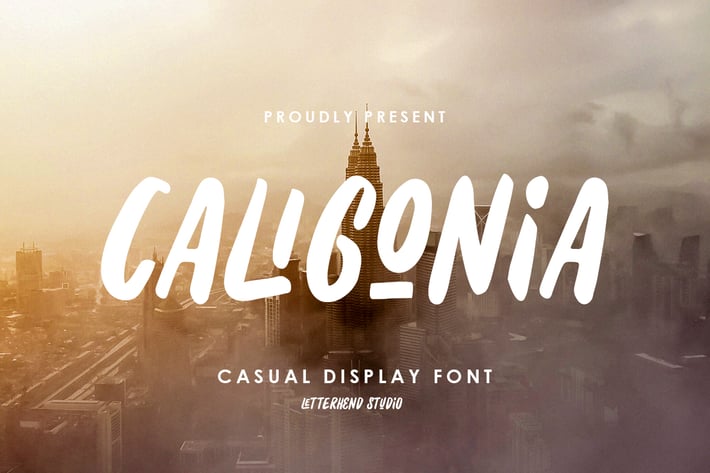
Caligonia - Casual Display Typeface
Caligonia, a casual display font which has unique ligatures. This font perfectly made to be applied especially in logo, and the other various formal forms such as invitations, labels, logos, magazines, books, greeting / wedding cards, packaging, fashion, make up, stationery, novels, labels or any type of advertising purpose.
+ uppercase & lowercase
+numbers and punctuation
+ multilingual
+ ligatures
+ alternates